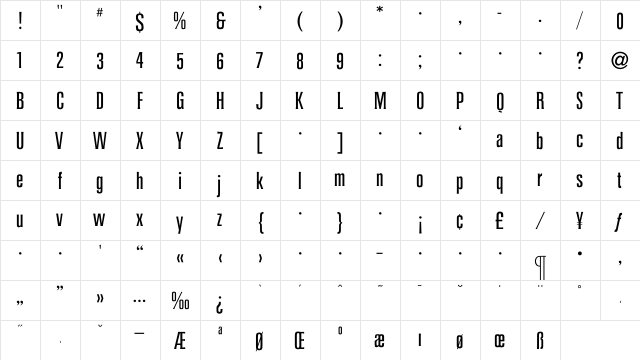
ColiseumLight Regular
Design Context for ColiseumLight Typeface
ColiseumLight takes a measured approach to typography — its balanced proportions and neutral character make it a reliable workhorse for both digital and print work. Its slender proportions lend an understated elegance to any composition.